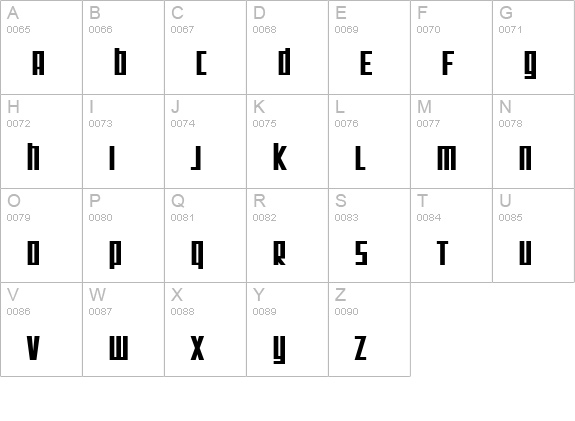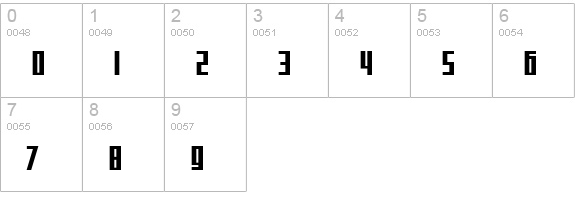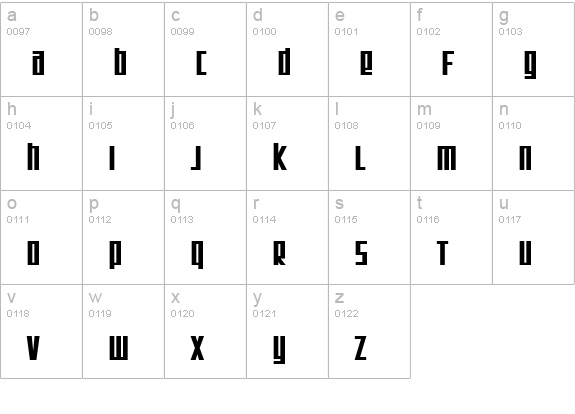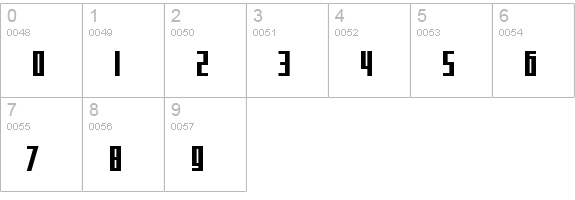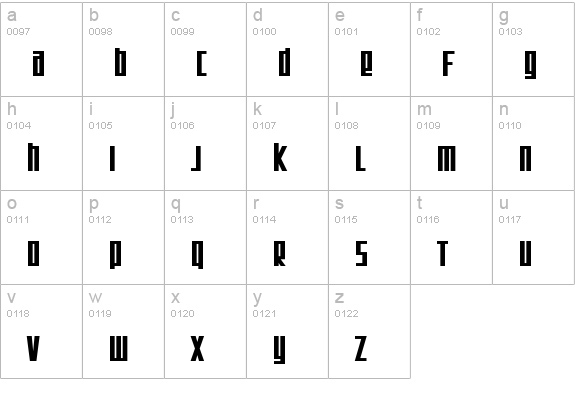
SF Square Root Bold Font Details
SF Square Root Bold is a strong, high-contrast variant in the SF typeface family \xE2\x80\x94 well suited to headlines, attention-grabbing titles, and strong calls-to-action.
SF Square Root Bold font is a visually striking and modern typeface that exudes confidence and boldness. With its clean lines and sharp edges, this font is perfect for adding impact to any design project. Whether you're creating a logo, designing a poster, or composing a headline, SF Square Root Bold will ensure your message stands out. This font is not only visually appealing but also incredibly versatile, making it suitable for a wide range of applications. Its bold weight commands attention, while its square shapes add a touch of geometric elegance. SF Square Root Bold strikes the perfect balance between modernity and sophistication, making it an ideal choice for both digital and print designs. One of the best things about SF Square Root Bold is that it is freely available to download at FontsMarket.com. This means that you can easily access and use this font without any cost. Whether you're a professional designer or a hobbyist, having access to high-quality fonts for free can greatly enhance your creative projects. So why wait? Download SF Square Root Bold font now and elevate your designs to the next level. Let this font unleash your creativity and make a bold statement that is sure to capture attention. With its sleek and powerful aesthetic, SF Square Root Bold is the perfect choice for those looking to make a lasting impression. Get it today and embark on a design journey that is both visually stunning and impactful.